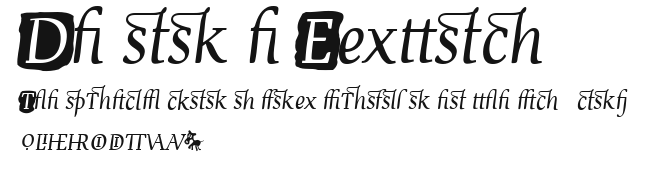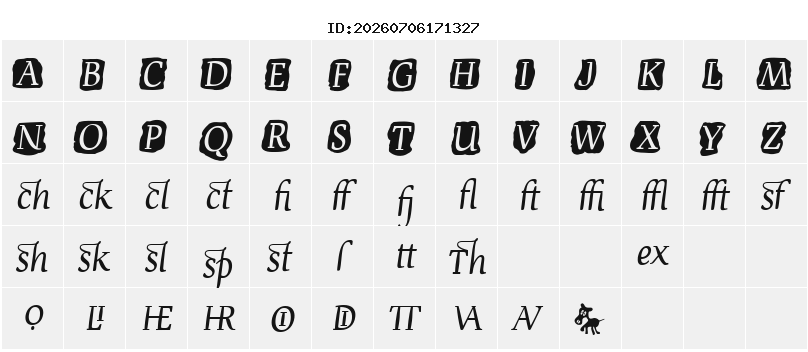
• Font Name: Devroye Extra
• Font ID: Devroye Extra: 2002
• Full Font Name: Devroye Extra
• Version: 1.2
• PostScript Name: DevroyeExtra
• Character Count: 68
• Designer: Apostrophe
About Devroye Extra.ttf